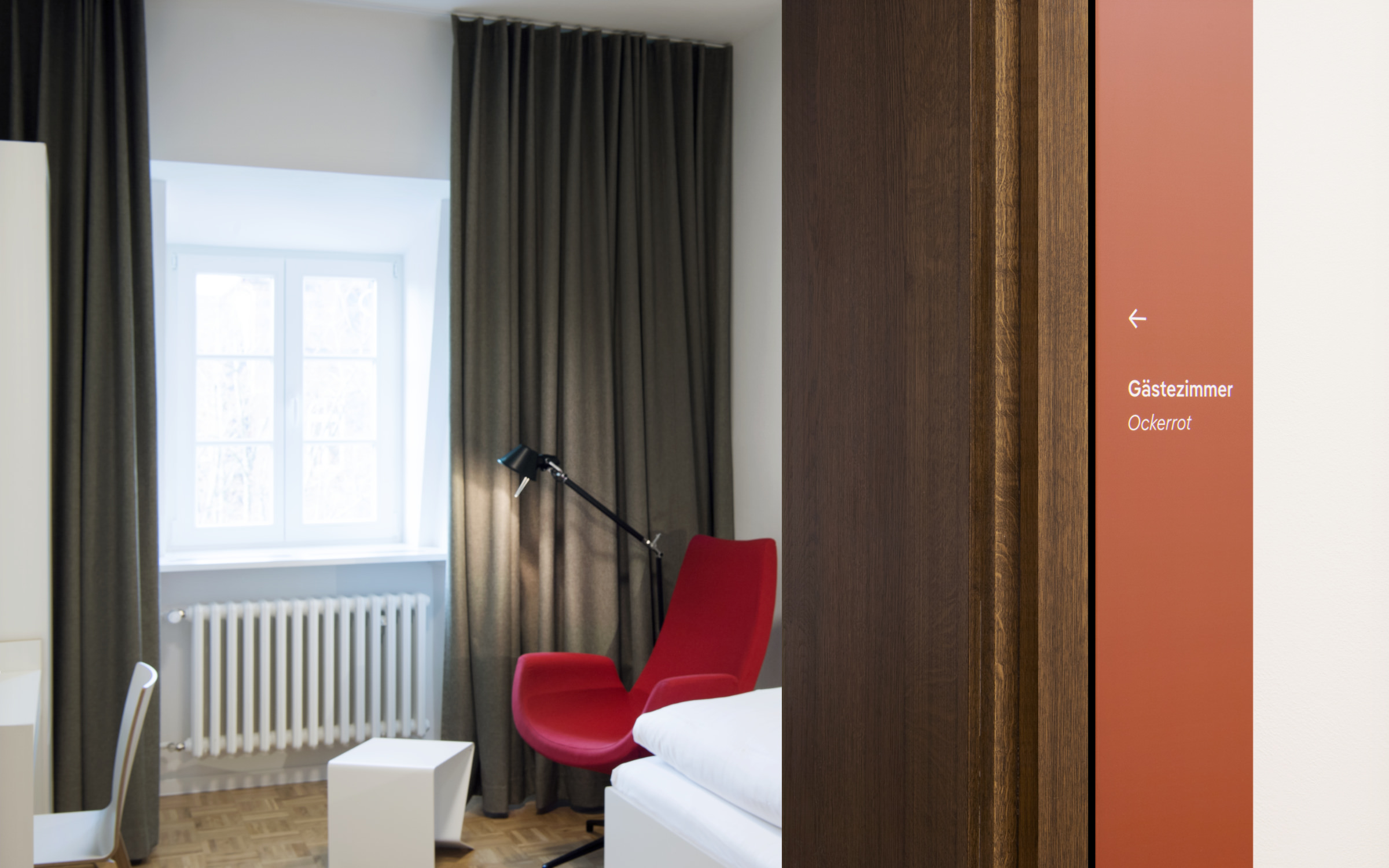
Bischöfliches Priesterseminar
Leitmotiv with an emotional impact
Pangea Text typeface is the new corporate font family for the Bischöfliches Priesterseminar in Trier, also used as part of their orientation system.
The conversion of the ‘Bischöfliches Priesterseminar’ in the center of Trier was one of the highlights of the “Day of Architecture” organized by the Architektenkammer Rheinland-Pfalz (Architectural Association of Rhineland-Palatinate) at the end of June 2024.
F
ollowing the relocation of the theological training for priesthood candidates to Frankfurt am Main in 2016, the interior of the “Haus Clementinum” was completely redesigned. Parts of the building were converted for church training events, while other areas were designed for external tenants. A barrier-free conference center with reception, 23 guest rooms, 9 conference rooms, dining room, bistro and kitchen was created in the remaining space.
Pangea Text typeface is the new corporate font family for the Bischöfliches Priesterseminar in Trier, also used as part of their orientation system.
Through the careful handling of the existing building and restrained and considered renovation it was possible to preserve the charm of the old architecture while paving the way for the new use. Visual accents are set by the color red, which both reflects the identity of the seminary and creates decorative points of tension in the individual parts of the building. Of particular note is the signage system, which was developed by the young designer Jana Heinz (Die Creativistin) in collaboration with the architectural firm Hardt und Partner.
Pangea Text typeface is the new corporate font family for the Bischöfliches Priesterseminar in Trier, also used as part of their orientation system.
Her task was to design an orientation system that blended seamlessly into the architecture whilst creating a link to the history of the building. It was important to her to create a visually inviting atmosphere that encourages visitors to explore the conference center. The color red, which has always been a distinguishing feature of the seminary, characterizes the new orientation system of the Clementinum in various facets, from imposingly bright to subtle to earthy. On the one hand, the color blocking concept clearly shows the hierarchy of the pathways, while on the other hand, it gives the individual rooms and levels an emotional character.
Pangea Text typeface is the new corporate font family for the Bischöfliches Priesterseminar in Trier, also used as part of their orientation system.
The three floors of the seminary are characterized by different shades of red; the white lettering is set in the geometric-humanistic sans-serif Pangea Text.
The corporate font used is Pangea Text, designed by Christoph Koeberlin. When set within the seminary, Pangea impresses with its neutrality – white on red, partly upright, partly in italics – while the diagonal connections and round dots ensure a friendly appearance. Due to its large x-height, it is also very legible from a distance. Pangea’s proportional lining figures are a perfect match when numbering floors and rooms, as they exude confidence rather than bureaucracy.
Central to my design is the color red and its emotional diversity as well as the friendly font Pangea and these act as a basis for future developments in interior design.
is how Jana Heinz summarizes the core of her guidance system and its future.
Pangea Text typeface is the new corporate font family for the Bischöfliches Priesterseminar in Trier, also used as part of their orientation system.
Convincing and yet light-footed: The guidance system of the converted episcopal seminary in Trier (Bischöfliches Priesterseminar).
Pangea Text typeface is the new corporate font family for the Bischöfliches Priesterseminar in Trier, also used as part of their orientation system.
The guidance system of the Bischöfliches Priesterseminar is based on a broad spectrum of the color red that offers space for emotional accents.
Pangea Text typeface is the new corporate font family for the Bischöfliches Priesterseminar in Trier, also used as part of their orientation system.
• Concept for orientation system: collaboration between Hardt und Partner and Die Creativistin (design office for visual communication, Jana Heinz)